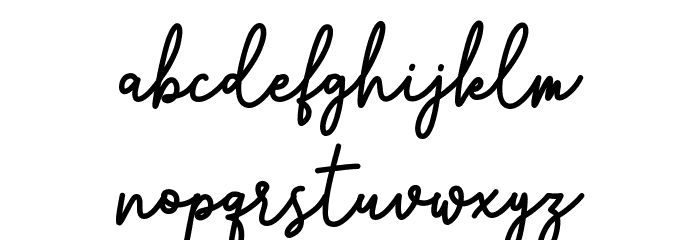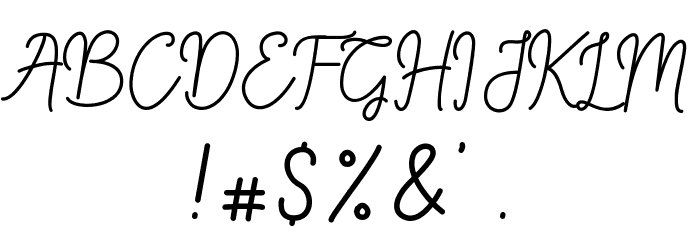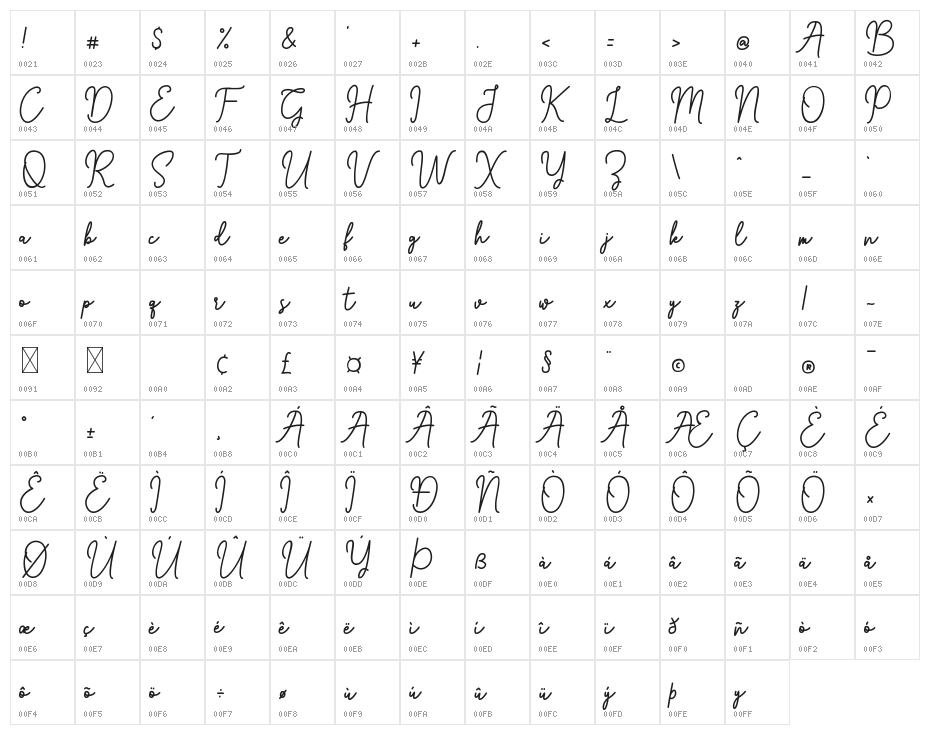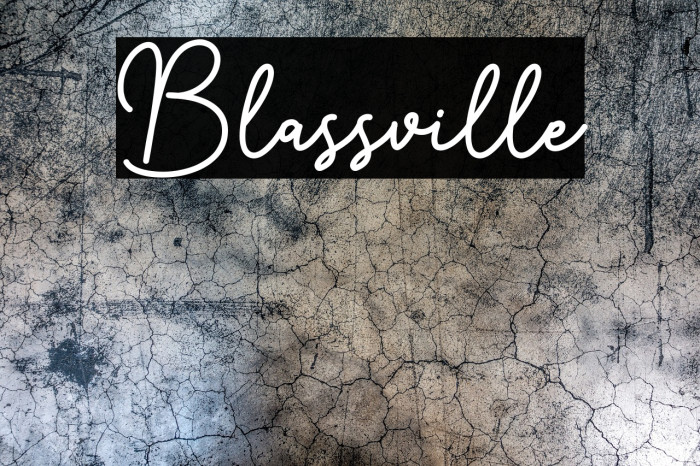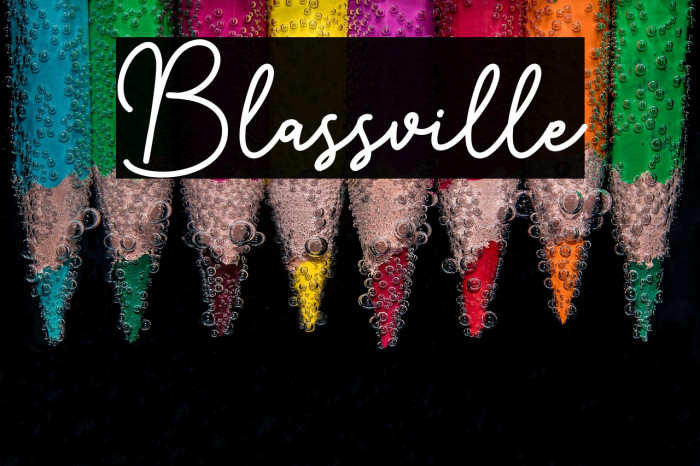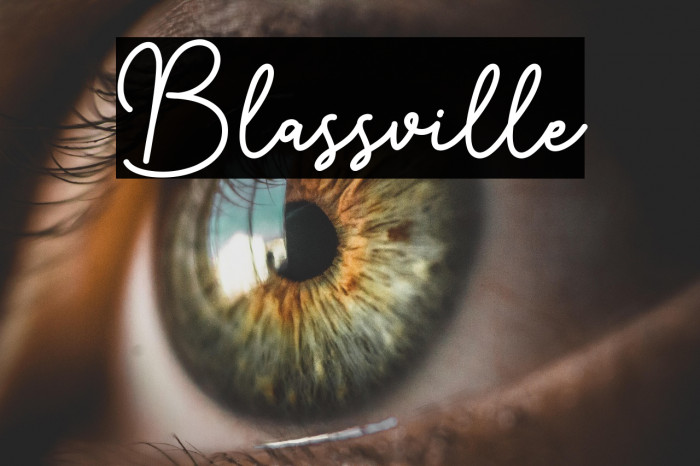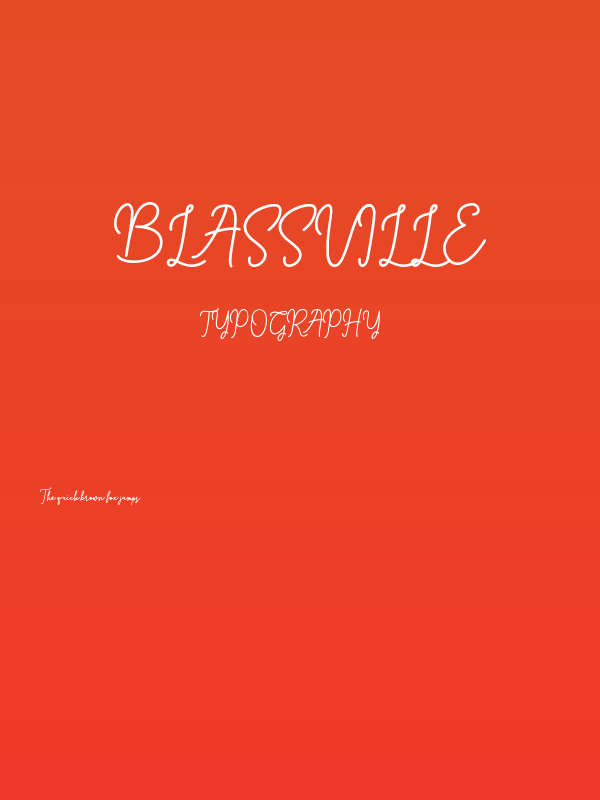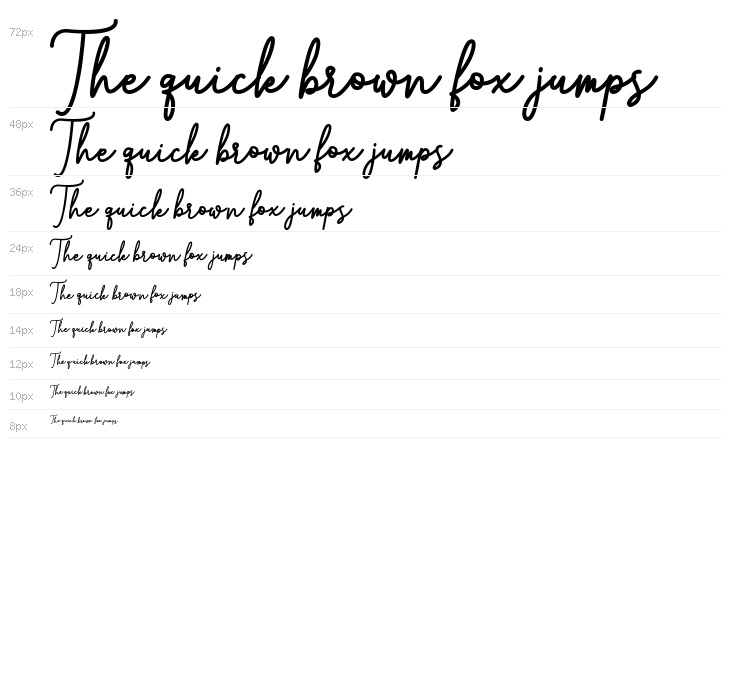
Blassville Font
This font features a flowing, cursive style with elegant, looping strokes that give it a handwritten appearance. The uppercase letters are tall and slender, with graceful curves and a slight slant, while the lowercase letters maintain a consistent flow with smooth connections between characters. The numbers and special characters are designed to complement the overall script style, adding a touch of sophistication. The font's delicate lines and artistic flair make it ideal for projects that require a personal, elegant touch.
A flowing, cursive script font with elegant, looping strokes.
- Proposed Projects: Ideal for wedding invitations, greeting cards, personal branding, and elegant logos.
- Overall Style: Elegant, Handwritten
- Use Case: Logos, Invitations, Personal Branding